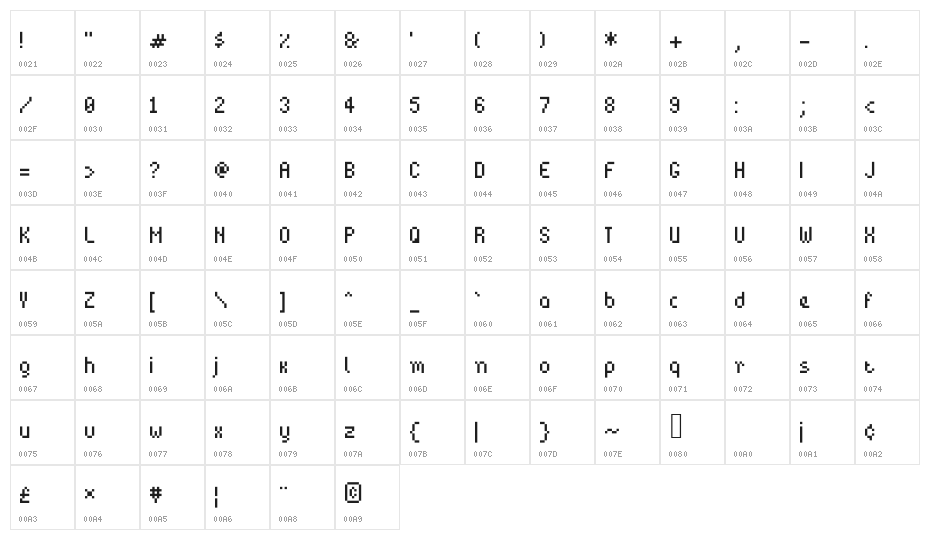
BitPotion Font
BitPotion Description
This font features a pixelated, blocky design reminiscent of early digital displays and retro video games. Each character is composed of uniform square pixels, giving it a distinctly digital and nostalgic feel. The uppercase and lowercase letters maintain a consistent height and width, contributing to a monospaced appearance. Numbers and special characters follow the same pixelated style, ensuring uniformity across all glyphs. The font's simplicity and clarity make it highly legible, even at smaller sizes. Its retro aesthetic is perfect for projects that aim to evoke a sense of nostalgia or pay homage to classic computing and gaming eras.
| Overall Style | Retro |
| Use Case | Logos, Headlines, Digital Art |
| Proposed Projects | Ideal for retro video game designs, digital art projects, tech-themed posters, and nostalgic branding. |